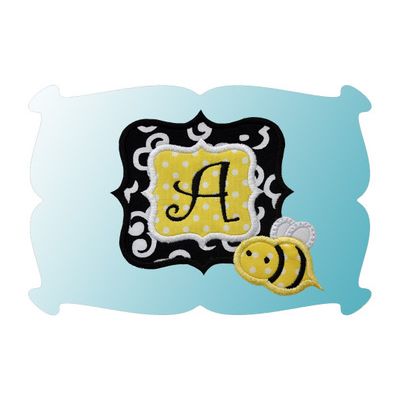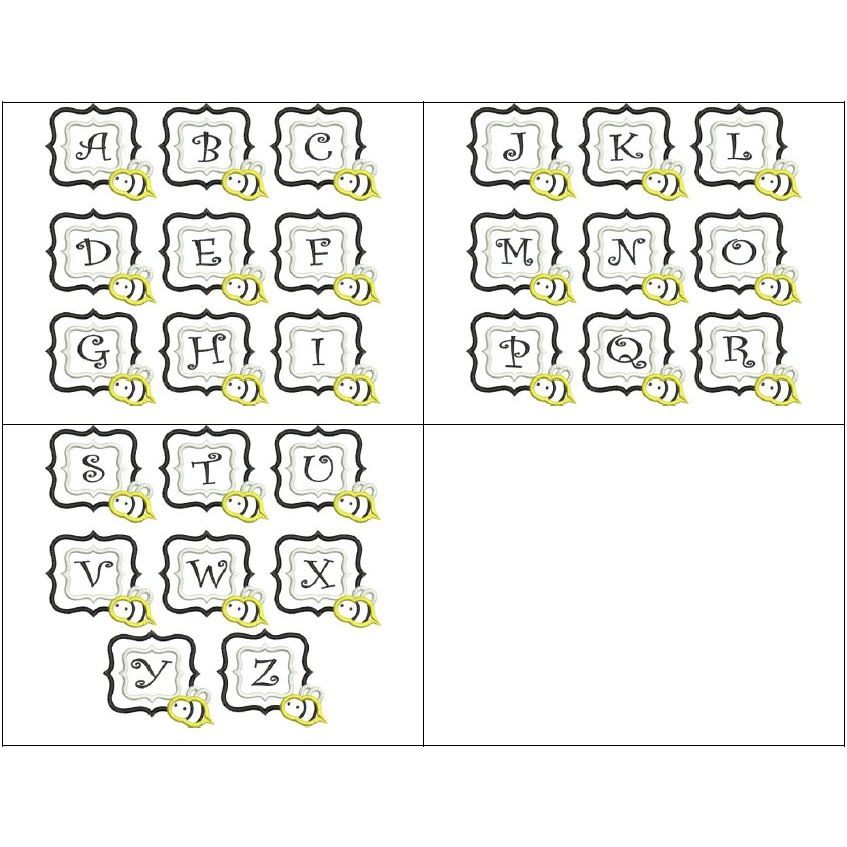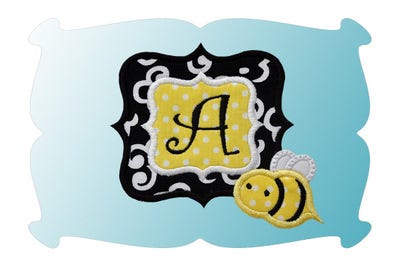
Bumble Bee Frame Satin Stitch Applique Monogram Embroidery Font
Bumble Bee Monogram Font Frame Applique
This is a darling design for all bumble bee lovers!
The monogram font is embedded onto the design for you so there is no fussing with your software.
Included are capital letters A thru Z, embedded onto the design for you.
You will also receive a blank frame.